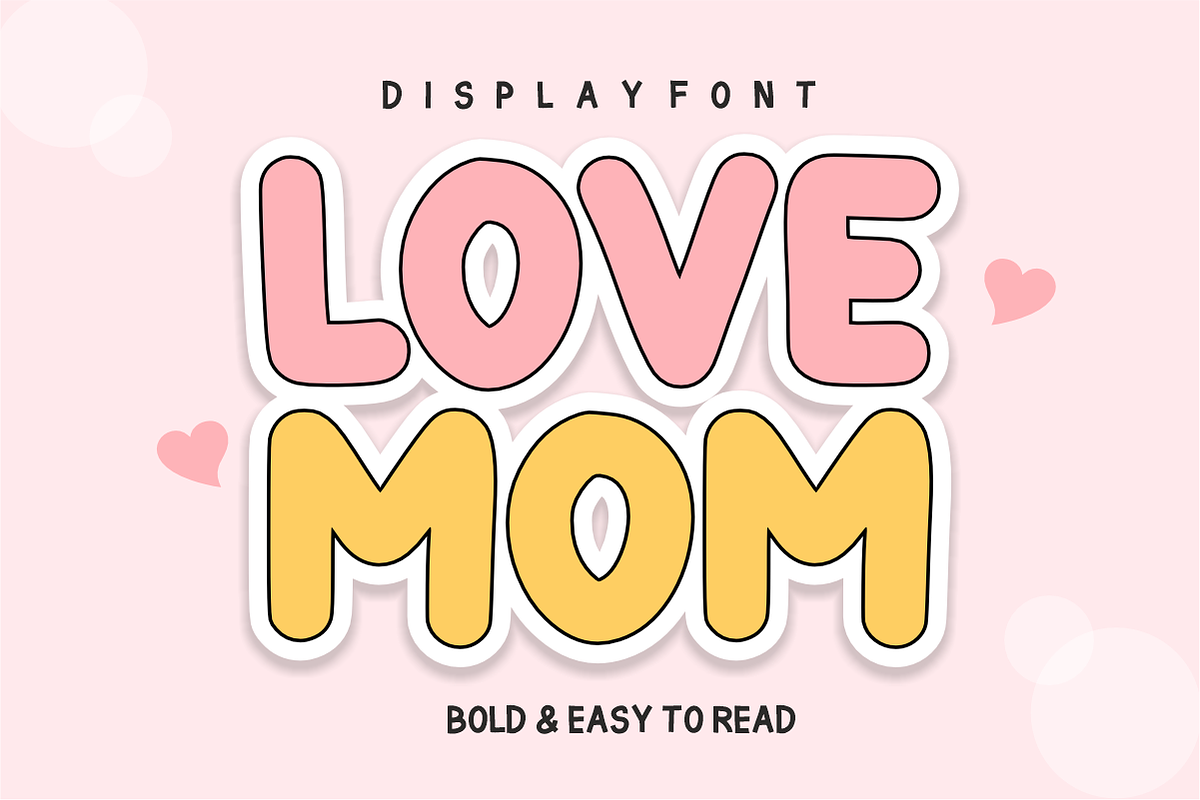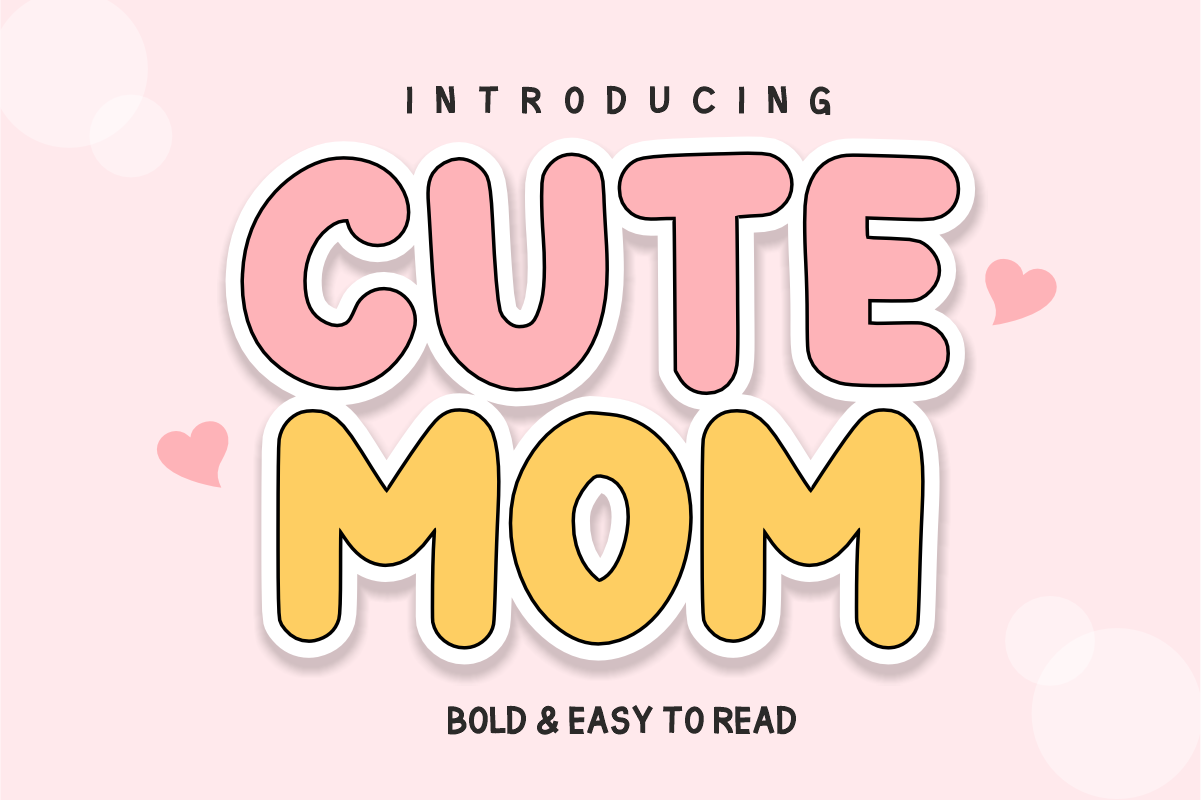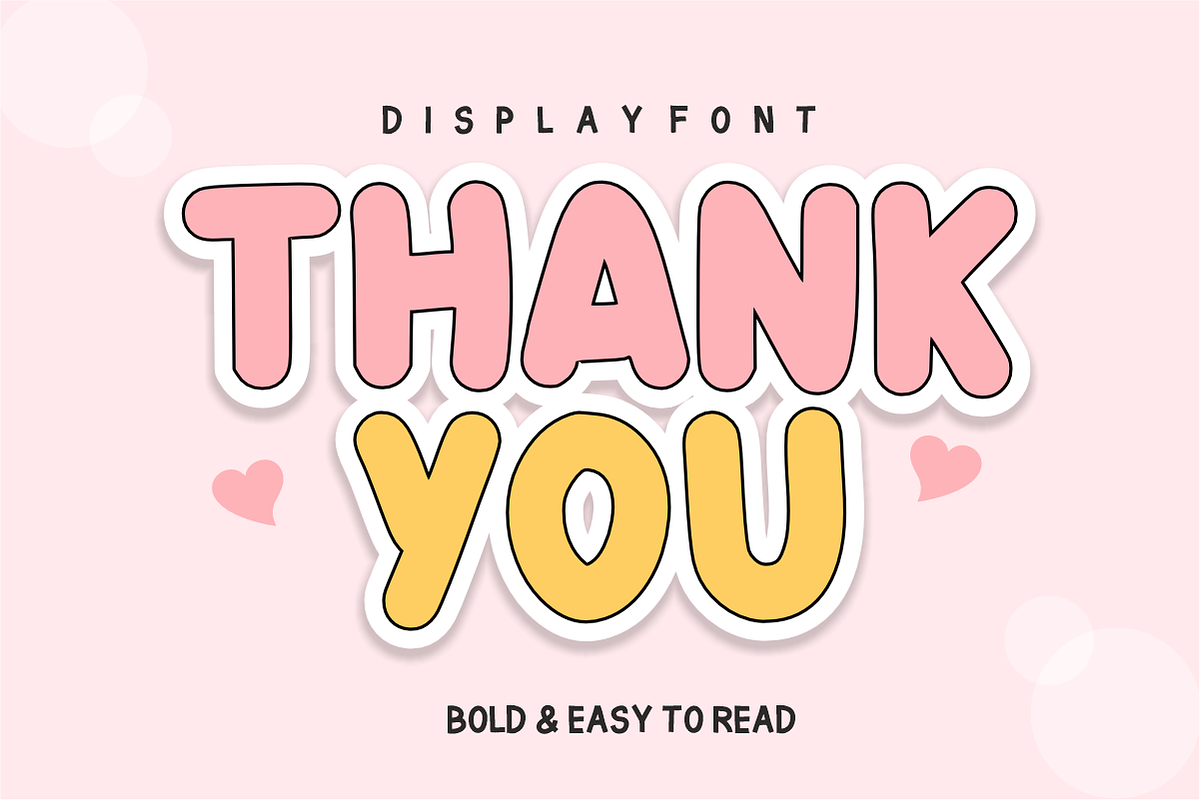
Cute Mom - Bold Playful Font
Cute Mom - Bold Playful Bubbly Font
Infuse your creative projects with pure joy and warmth using Cute Mom! True to its tagline, this ultra-chunky display font is "Bold & Easy to Read," featuring soft, rounded letterforms that bring an instant hand-drawn charm to any layout.
Engineered for maximum legibility and high visual impact, Cute Mom is a must-have tool for crafters, digital creators, and designers looking to add a friendly, welcoming touch to their work. It balances a whimsical, lighthearted aesthetic with professional vector precision, making it perfect for both print and digital design workflows.
All-Caps Character Set (Chunky, bubbly uppercase letters)
Numbers & Basic Punctuation (Essential, simple symbols included)
Cricut, Silhouette, & DIY Crafting Projects ✂️
Sublimation Designs & Trendy T-Shirt Printing 👕
Mompreneur Branding & Lifestyle Creative Logos 🎨
Social Media Graphics & Engaging Content Creation 📱
Children's Packaging, Stickers, & Whimsical Labels 📦